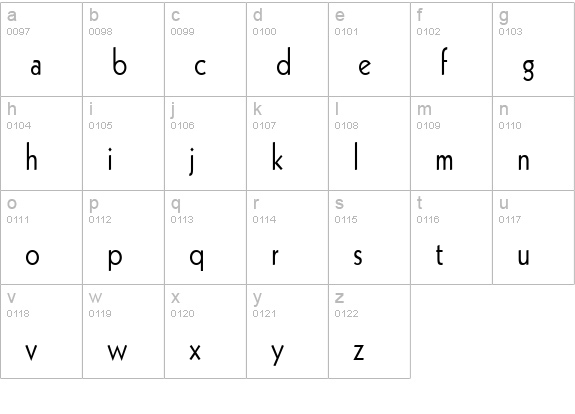
Geo 112 Condensed Normal is the standard, neutral, condensed-width variant in the Geo typeface family \xE2\x80\x94 well suited to general body text, paragraphs, and standard typographic work.
Geo 112 Condensed Normal font is a sleek and modern typeface designed to add a touch of sophistication to any project. Its condensed style makes it ideal for fitting more text into limited spaces without sacrificing readability. The clean lines and sharp angles give this font a contemporary feel, perfect for conveying a sense of professionalism and efficiency. What sets Geo 112 Condensed Normal font apart is that it is available for free download at FontsMarket.com. This means you can easily access this high-quality font without any cost, making it a valuable addition to your font library. Whether you are designing a website, creating a brochure, or crafting a presentation, Geo 112 Condensed Normal font is a versatile choice that will elevate your design with its modern aesthetic. Download it today and take your projects to the next level.